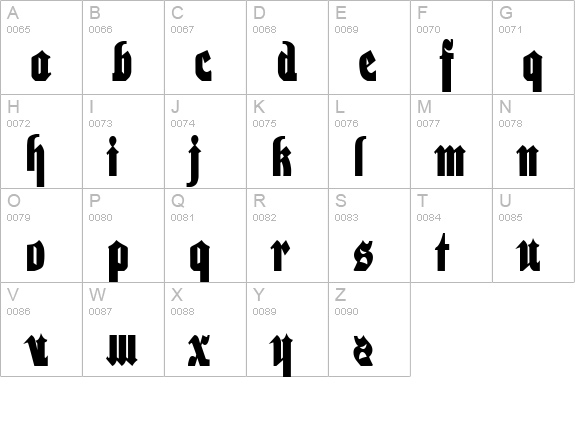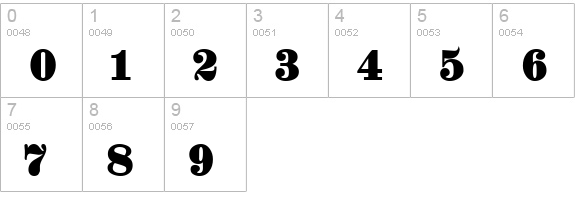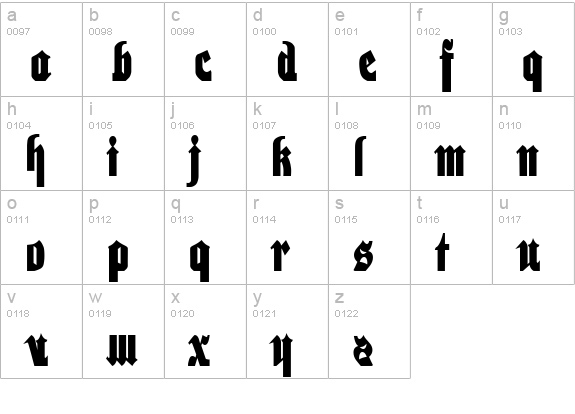
Nathaniel Font Details
Nathaniel font is a stunning and versatile typeface that exudes elegance and sophistication. Its sleek and modern design makes it perfect for a wide range of projects, from branding to graphic design. The clean lines and sharp angles of Nathaniel font give it a contemporary edge, while still maintaining a sense of timeless beauty. One of the best things about Nathaniel font is that it is completely free to download at FontsMarket.com. This means that you can add this stylish font to your collection without any cost, making it a fantastic option for designers on a budget. With its wide range of weights and styles, Nathaniel font offers endless possibilities for creating eye-catching and professional designs. Whether you're working on a logo, a website, or any other creative project, Nathaniel font is sure to impress. Download it for free today and elevate your designs to the next level with this elegant and sophisticated typeface.